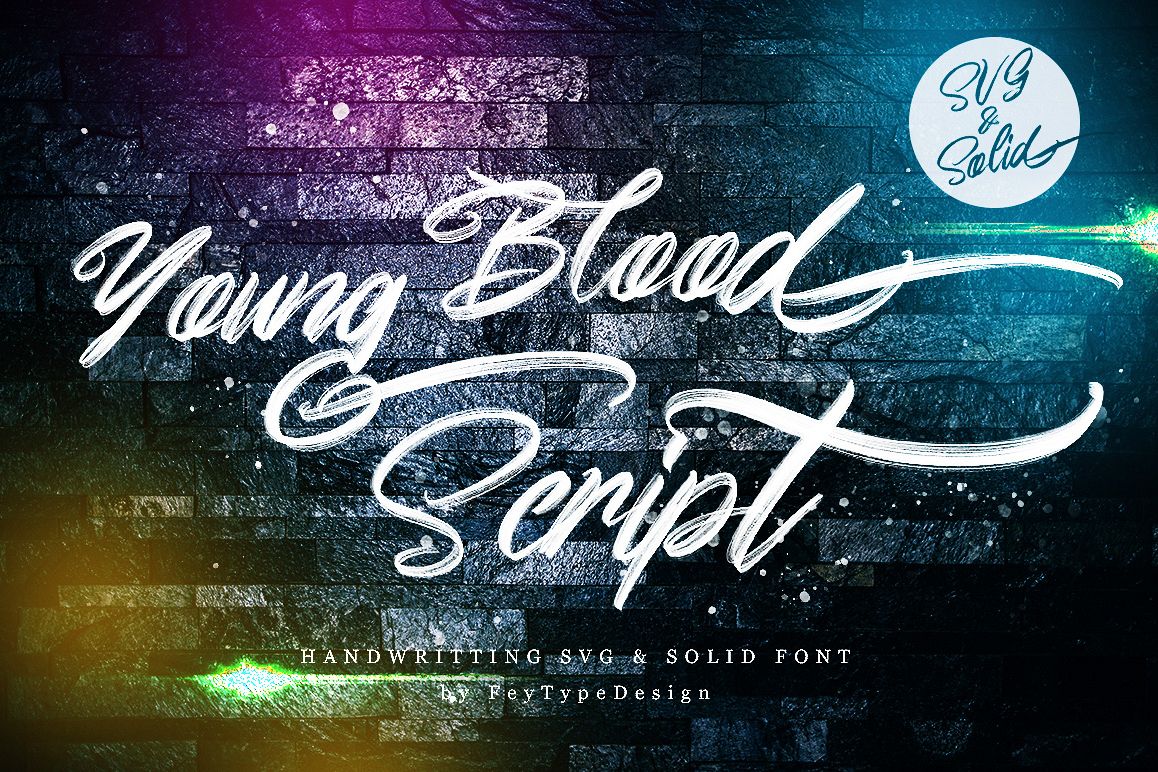
Young Blood - SVG & Solid
Young Blood is handwritten script font with messy grunge style, has two version SVG and Solid. Suitable for design, element design, wedding, event, t-shirt, logo, badges, sticker, and awesome work, etc...
For limited space of SVG font, there font not include Multilanguage Support and limited Punctuation
- Unique style fonts